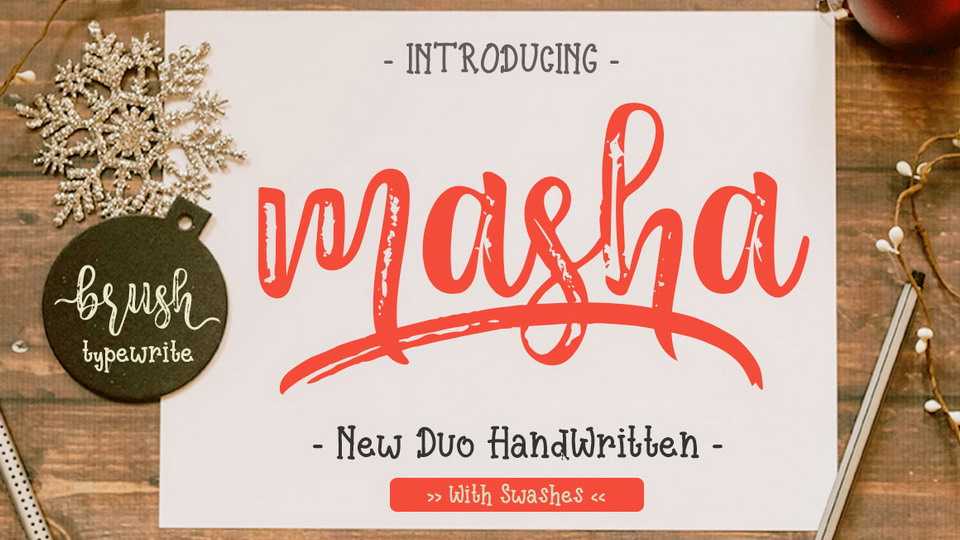
Download Masha, a pretty hand lettered font style that perfect for greeting cards, branding, stationery design, social media, packaging, magazine layouts, prints, logos and more!
Designer: Haksen Studio